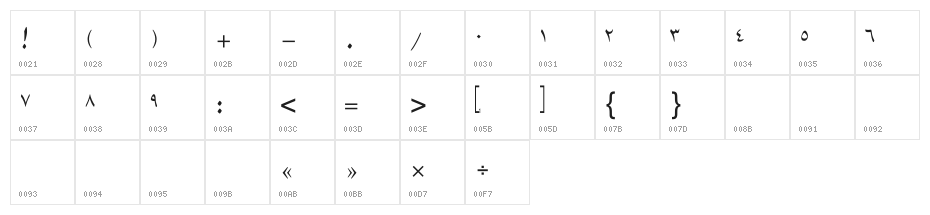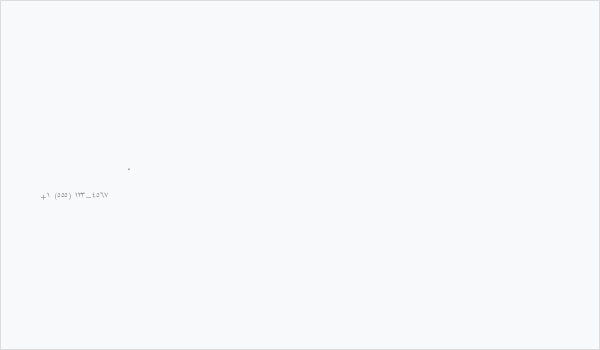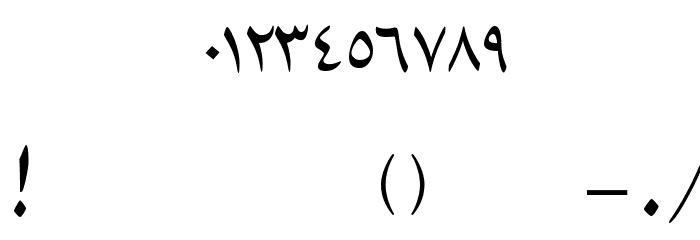
Sols Font
Sols Description
This font features a unique and artistic design with a handwritten style that exudes a sense of creativity and individuality. The characters are crafted with fluid strokes, giving them a dynamic and lively appearance. The numbers are particularly distinctive, with a playful and slightly whimsical touch that adds character to any design. The special characters maintain the same artistic flair, making this font suitable for projects that require a personal and expressive touch.
| Overall Style | Artistic |
| Use Case | Logos, Invitations, Posters |
| Proposed Projects | Ideal for artistic projects, personal branding, creative invitations, and expressive posters. |